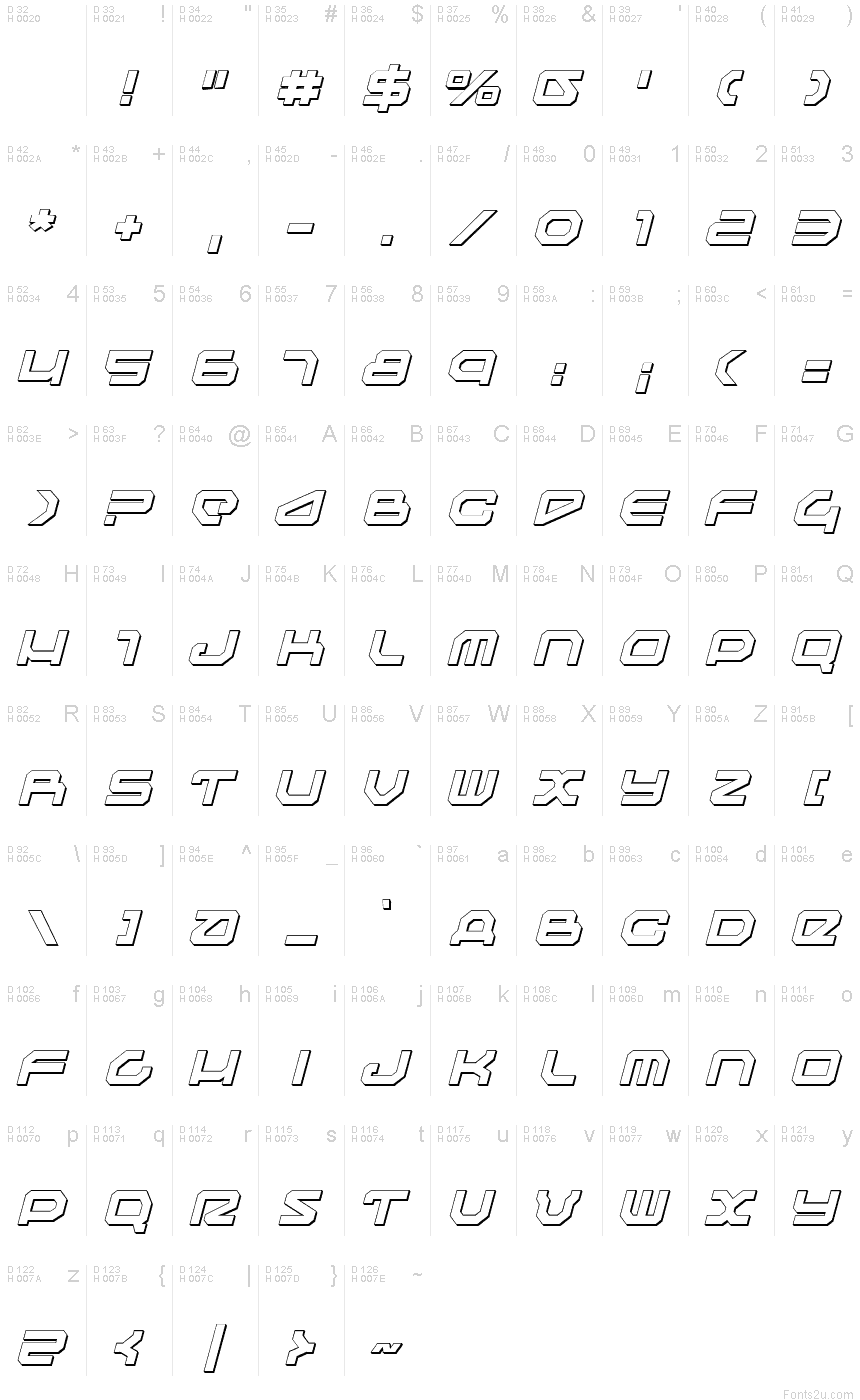
Traveler Shadow Italic by Daniel Zadorozny of Iconian Fonts is a free outlined techno display font with a forward slant, broad angular letterforms, and a stepped lower edge. Sharp cuts, squared curves, and clipped corners give the lettering the hard-edged look of racing graphics and science-fiction control panels.
The futuristic genre suits motorsport branding, arcade game graphics, and event posters centered on speed, machines, or high-stakes competition. Hollow strokes echo metal bodywork and mechanical panels in merchandise artwork. On magazine covers for science-fiction entertainment, the letters can become part of a detailed technical illustration or an onscreen interface rather than ordinary titling.